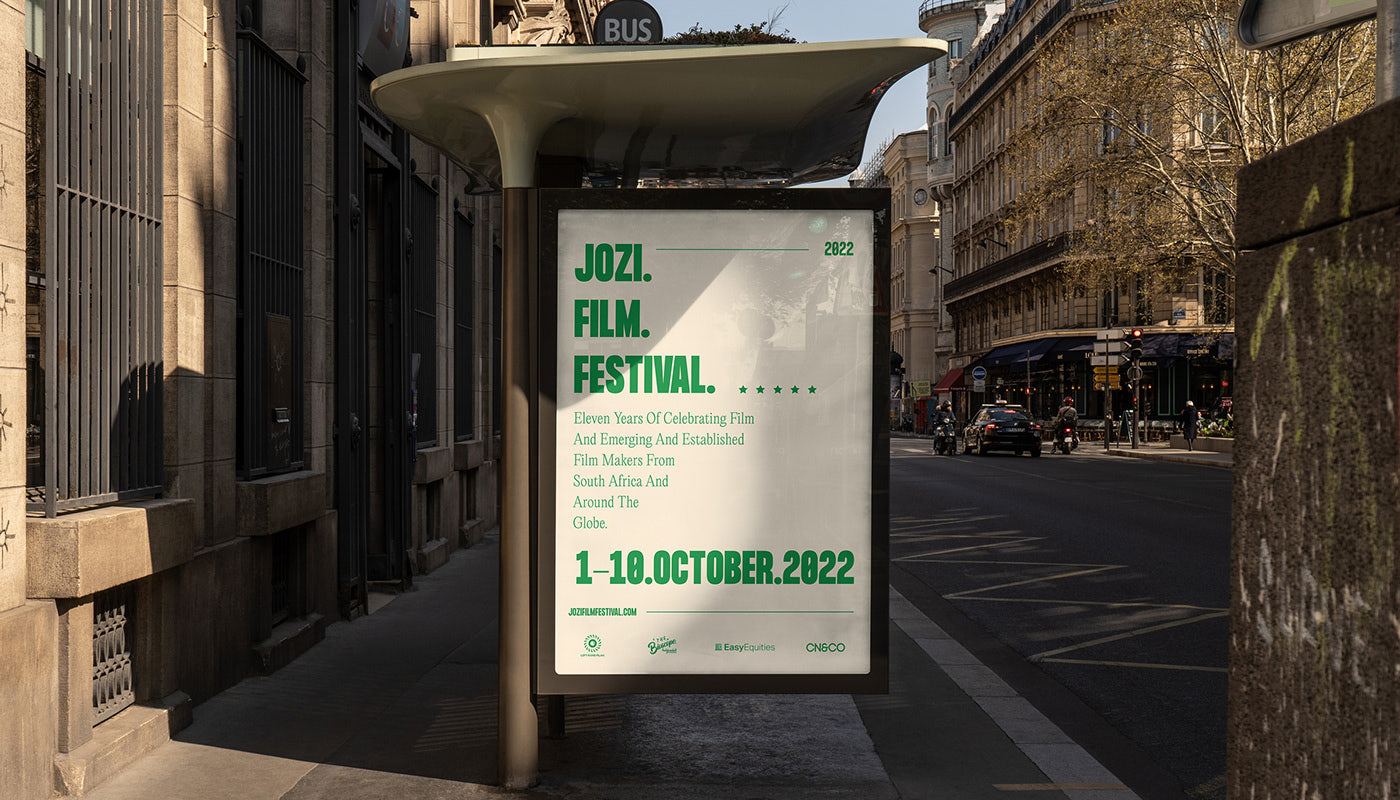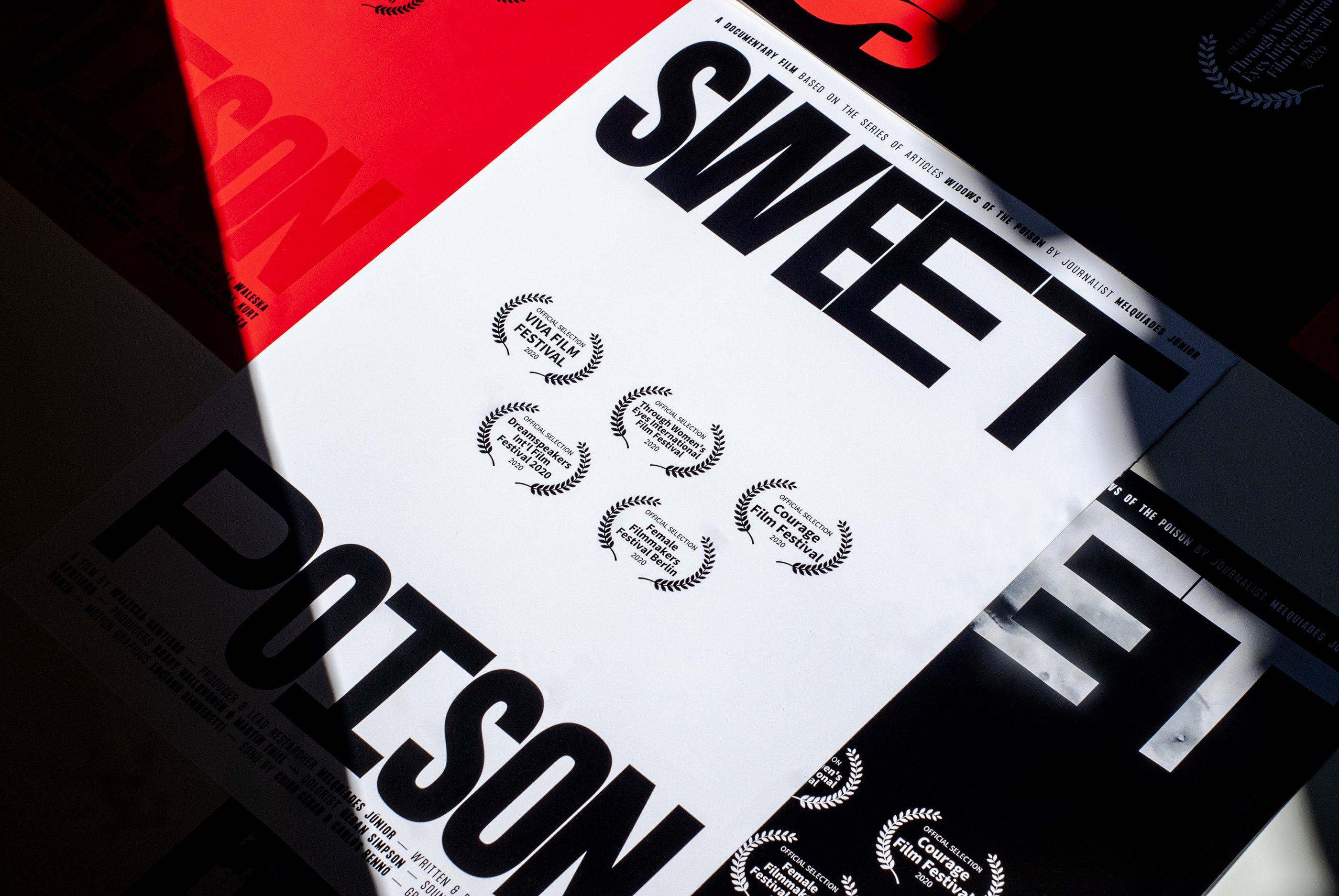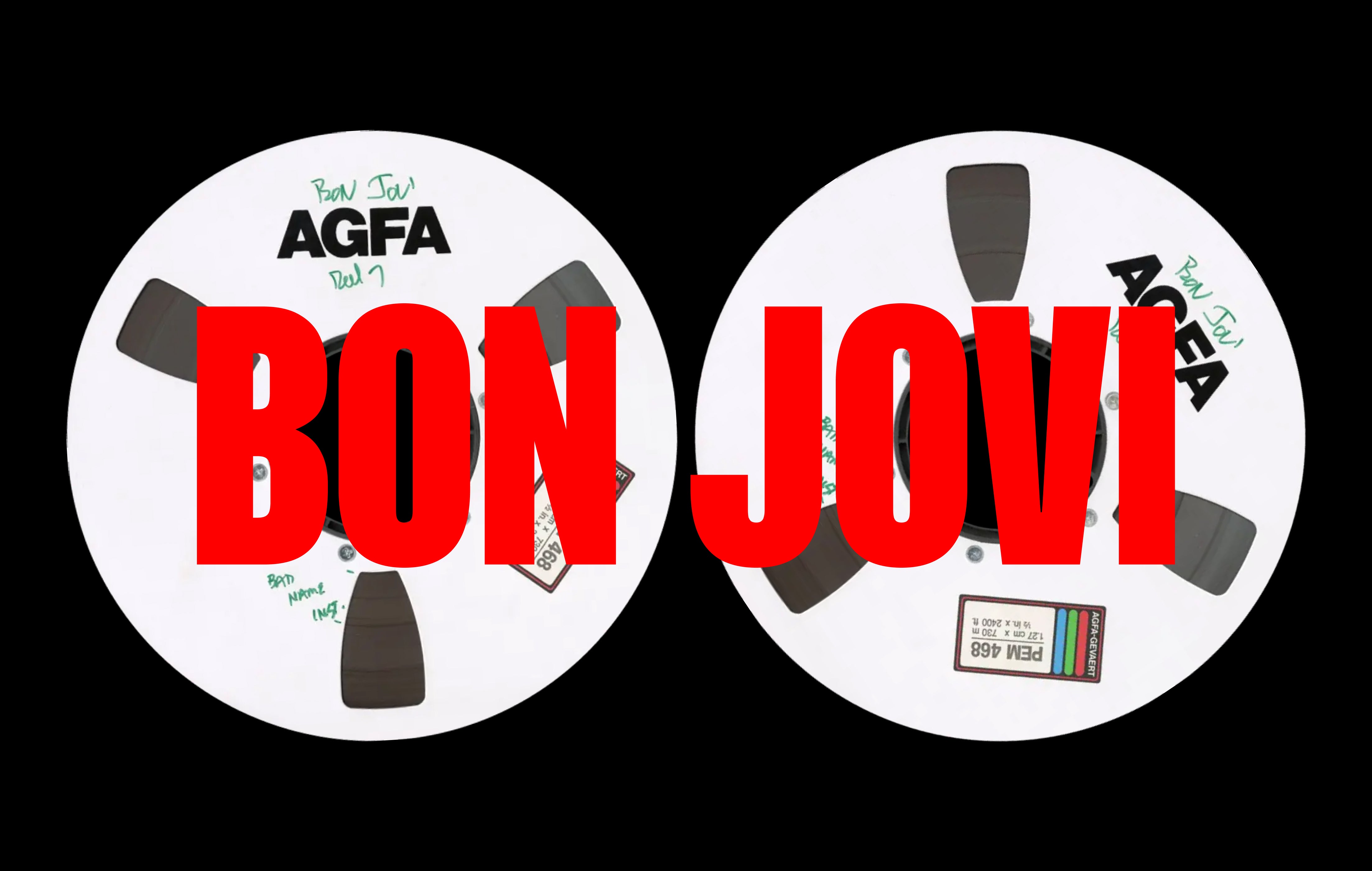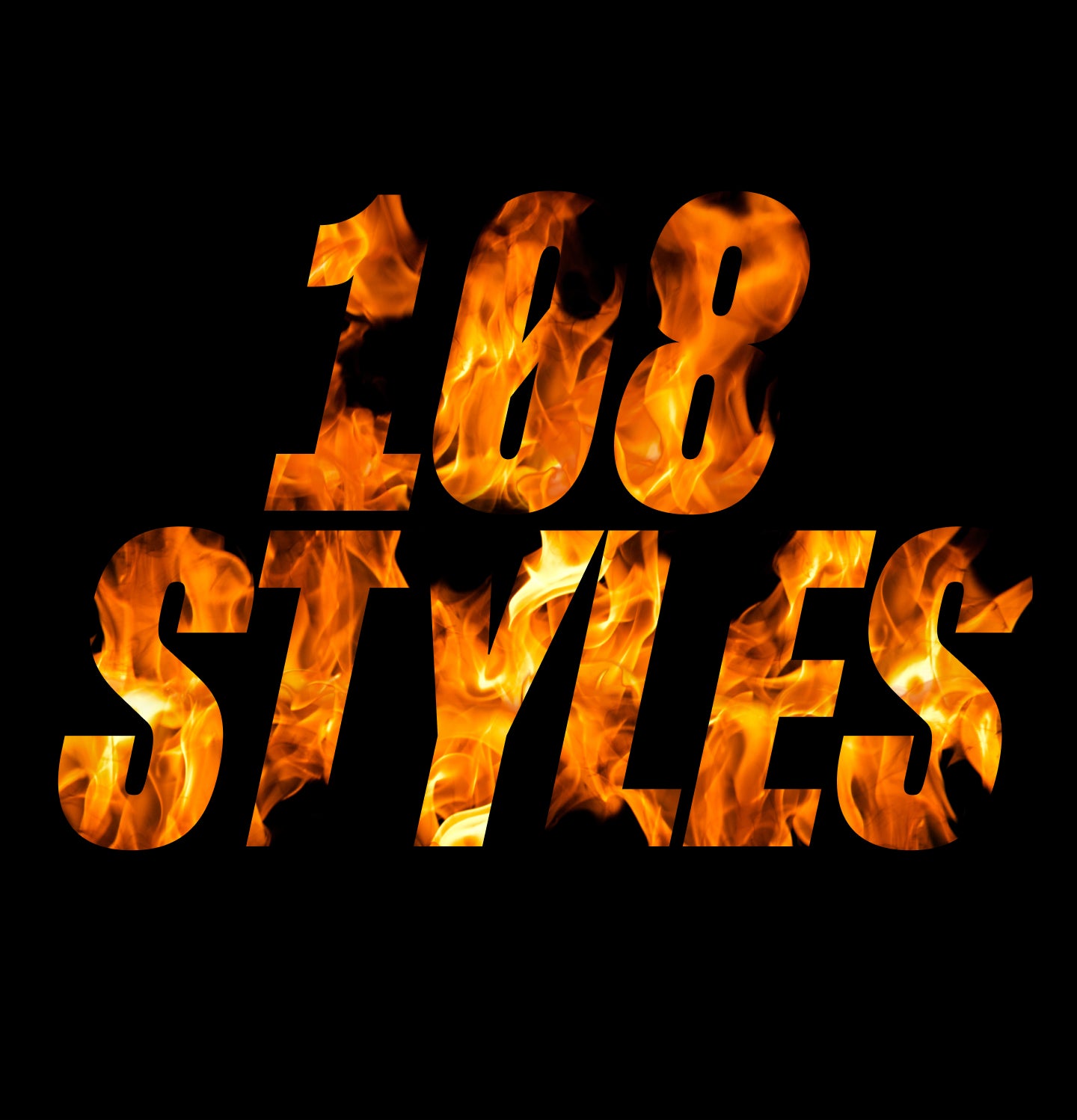
Formula
Racy by nature. Grotesk by design. This typeface doesn't idle.
Built to move.
Formula is a complete and versatile typeface that bold racy look with the flexibility of a grotesque. It comes in many styles from Condensed to Extended through a comprehensive set of weights from Thin to black all with their italic counterparts.
Formula was designed to make an impactful statement in your designs, wether you are using the Condensed Black Italic style for your race-inspired campaign or the Normal Regular weight just to go along as body text, this typeface has got it all!
6 Widths x 18 Styles = 108 Styles with 685 Glyphs each
Including Italic and Wide Alternates